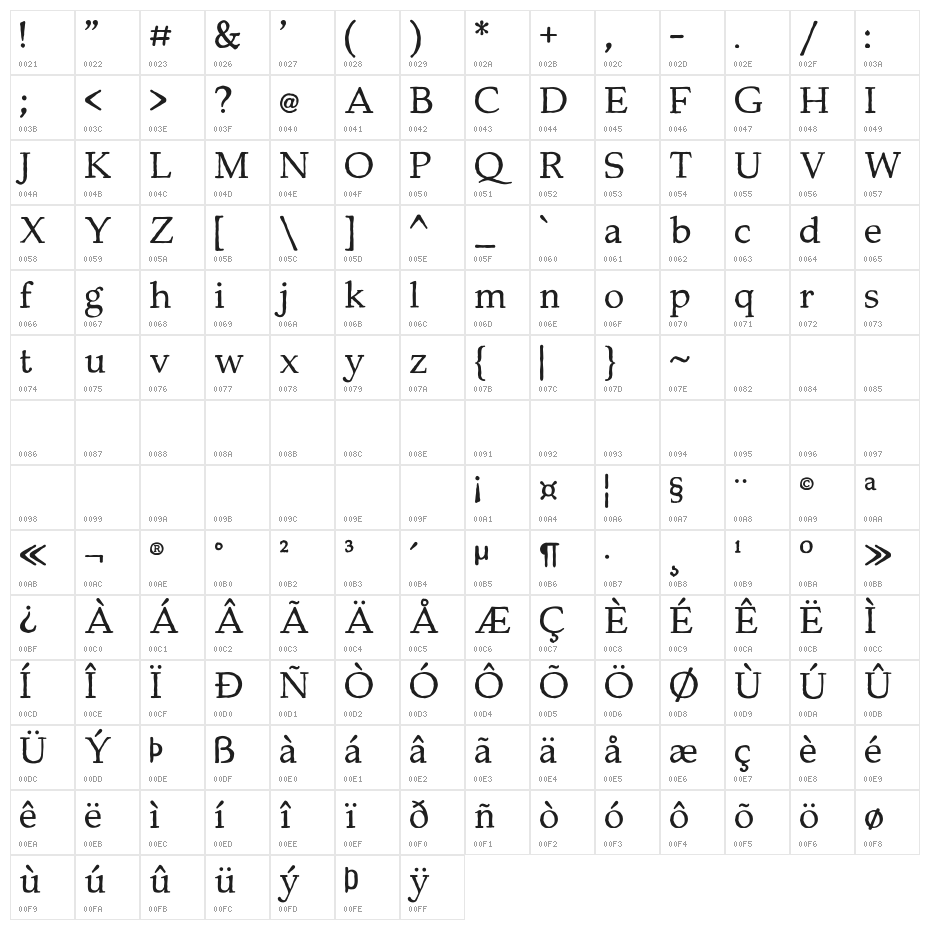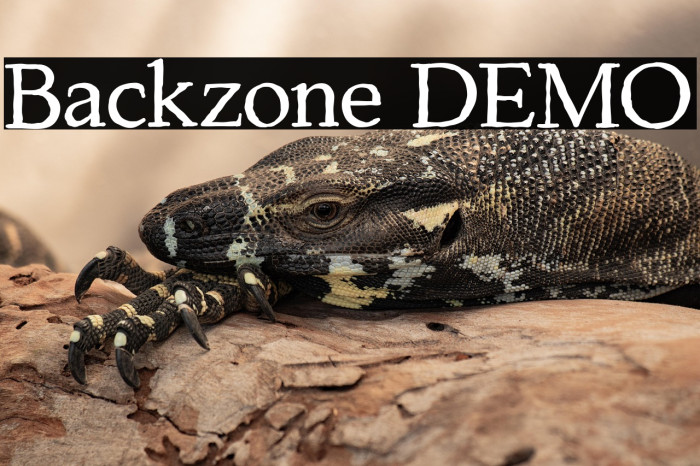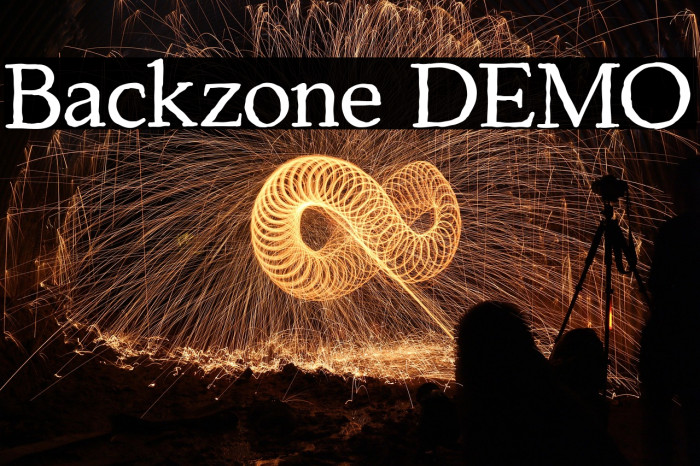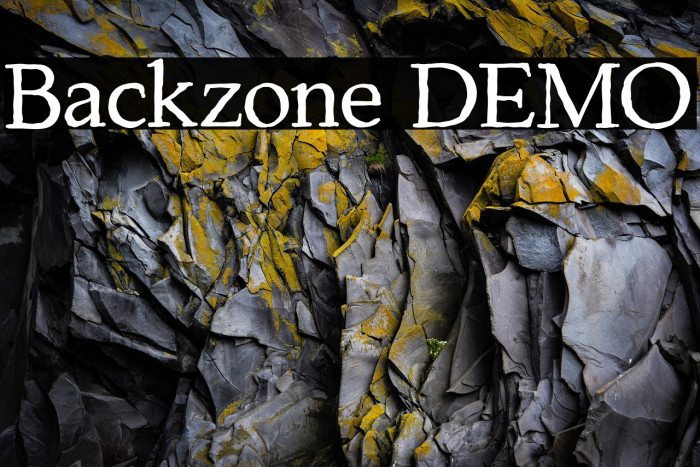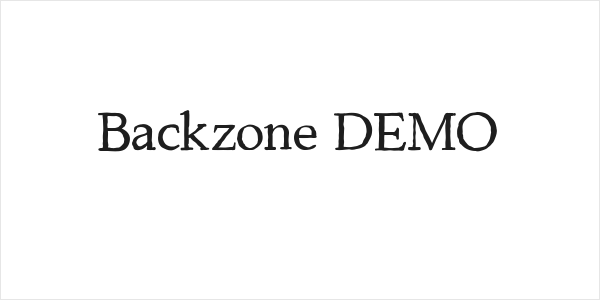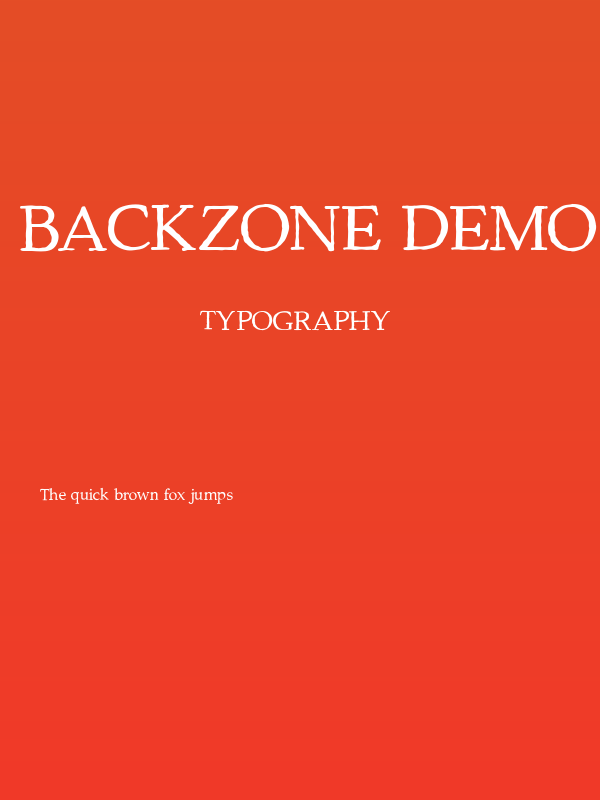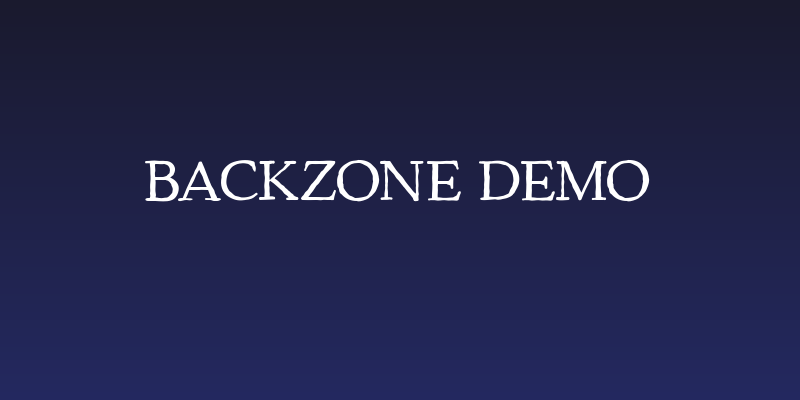
Backzone DEMO Font
Backzone DEMO Description
This font exhibits a classic serif style with a slightly distressed appearance, giving it a hand-crafted and vintage feel. The characters are well-defined with moderate contrast between thick and thin strokes, adding to its legibility and charm. The serifs are pronounced yet not overly exaggerated, maintaining a balance between elegance and readability. The uppercase and lowercase letters are consistent in style, with a slight variation in the stroke endings that adds a unique character to the font. The numerals and special characters follow the same design principles, ensuring uniformity across all glyphs.
| Overall Style | Vintage |
| Use Case | Headlines, Body text, Logos |
| Proposed Projects | Ideal for projects that require a vintage or classic touch, such as book covers, invitations, branding for artisanal products, or historical-themed designs. |